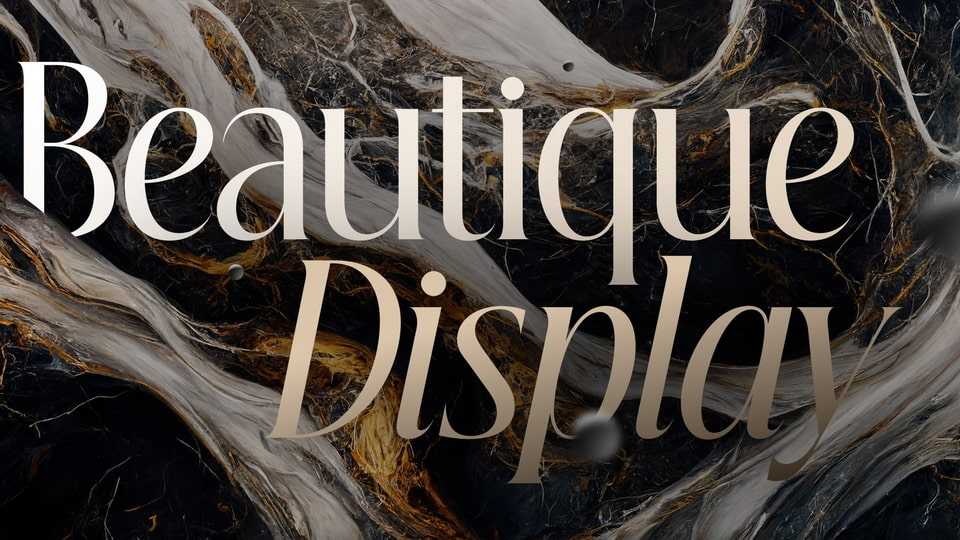
Beautique Display Font Family › Fontesk
Download Beautique Display font, an exclusive typeface, inspired from the foundation of classical calligraphy, specifically Roman typography. Beautique font is a versatile typeface, its usage is limitless on digital and editorial touchpoints alike.